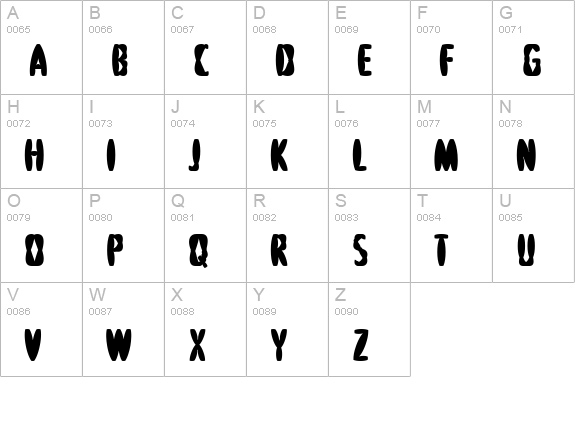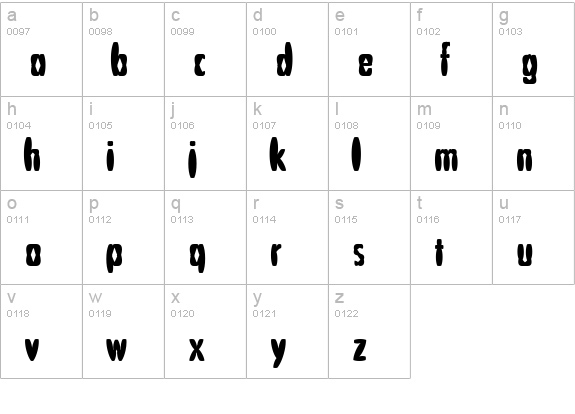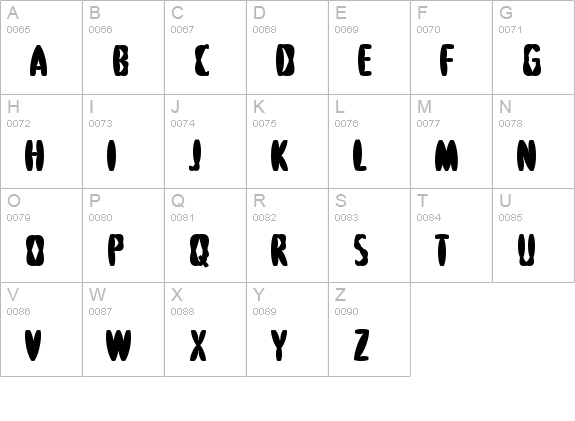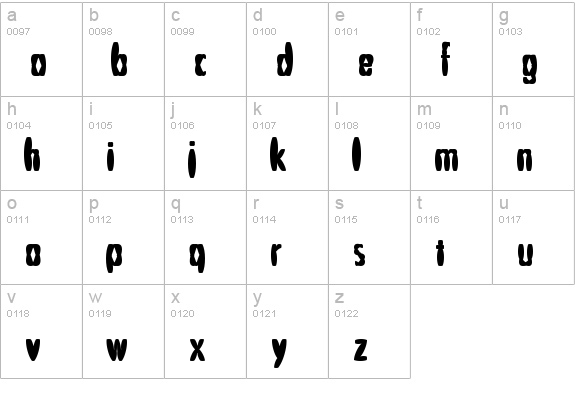
PuffedRiceBlack Font Details
PuffedRiceBlack font is a striking and bold typeface that exudes a sense of strength and modernity. With its thick, puffed-up letters and unique design, this font is sure to make a statement in any project. The rounded edges and smooth curves of each letter give PuffedRiceBlack a friendly and approachable feel, making it perfect for eye-catching headlines or attention-grabbing titles. And the best part? PuffedRiceBlack font is completely free to download at FontsMarket.com. Whether you're a seasoned designer looking for a new addition to your font library or a student working on a creative project, this font is a versatile and valuable asset. Don't miss out on the opportunity to add PuffedRiceBlack to your collection and elevate your designs with its bold and impactful style.